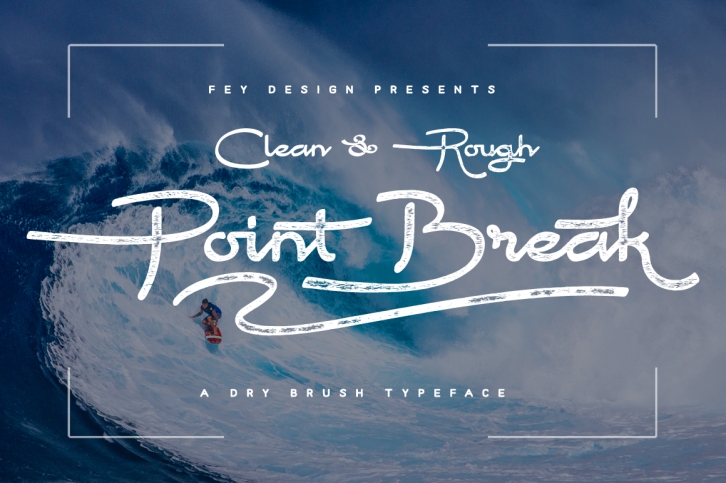
Point Break is a great font that was designed by feydesign. Imagine the amount of combinations you can create using this font! The archive is 14.18 MB and it was released on November 26, 2016. Point Break looks beautiful on wedding invitations, greeting cards, logos, posters, labels, t-shirt designs, logos, business cards and is perfect for use in ink or watercolor works, fashion, magazines, packaging and food menus, children's books and more!